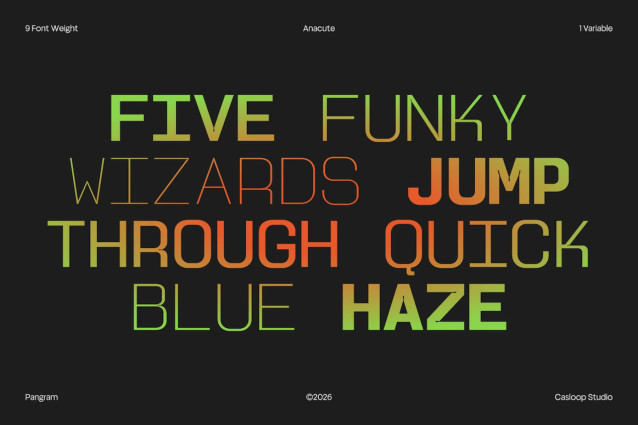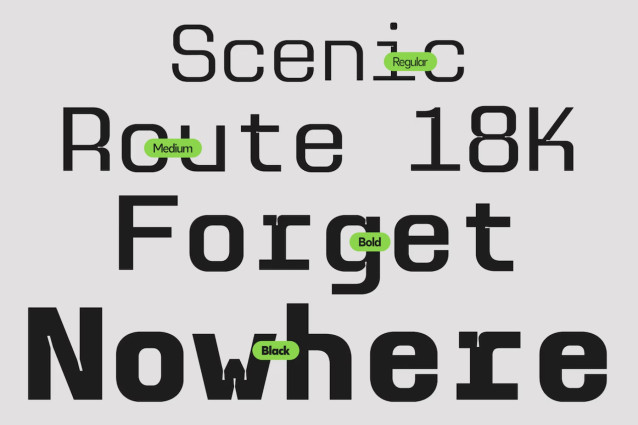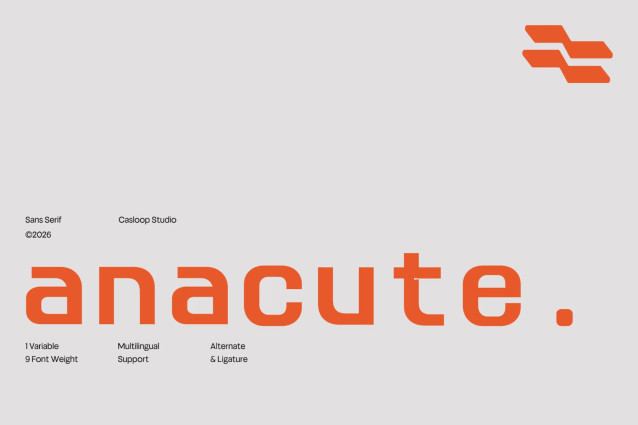
Anacute – Industrial Mono Sans Font
Anacute is an industrial sans serif designed with a mono-inspired structure and a distinctly futuristic visual rhythm. Its defining characters A, G, R, Q, T, and K feature clean terminal cuts and controlled stroke construction that create a precise, technical personality without losing its display presence. The combination of structured proportions, sharp detailing, and subtle quirks gives Anacute a modern industrial edge, making it well suited for headlines, branding, editorial layouts, digital interfaces, and contemporary display work that calls for a bold, functional, and forward-looking typographic voice. Recommended pairing with: Space Grotesk, IBM Plex Mono, Manrope, Helvetica Neue, Univers, DIN